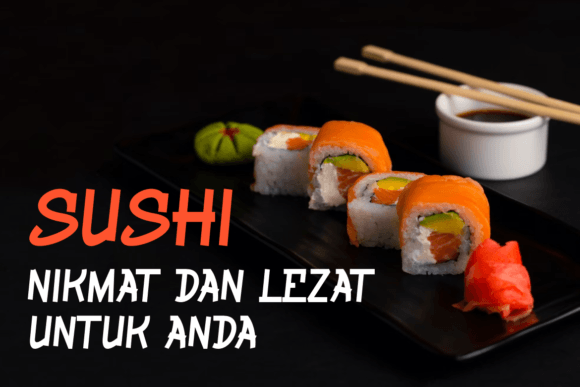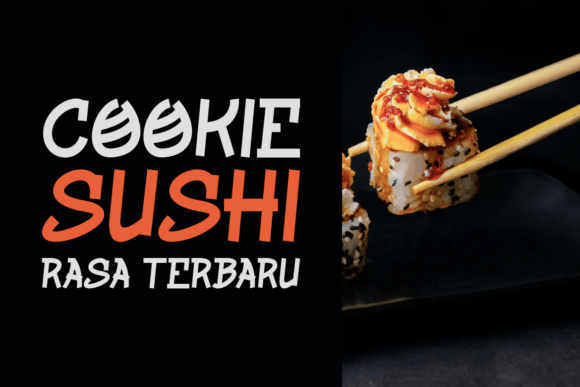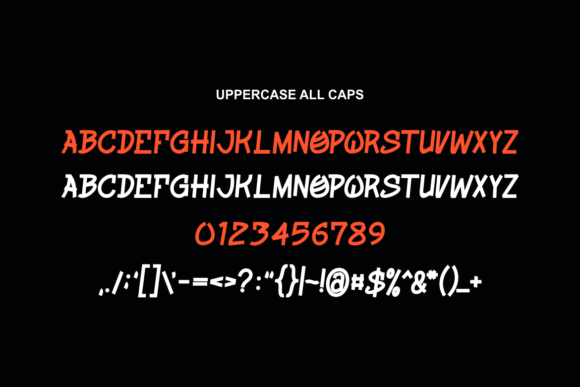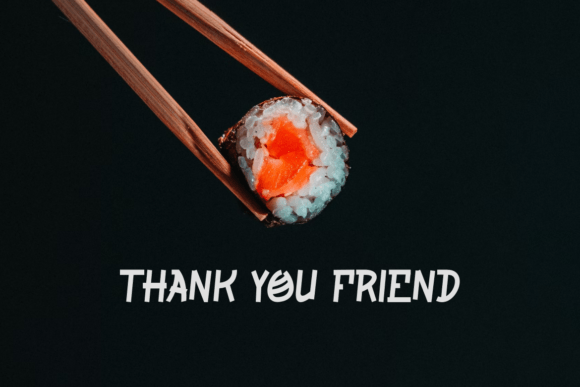
Introduction to Robycksushi Font
Remember that moment when you stumbled upon the perfect font for your creative project, and everything just clicked? For designers, finding the right font can be a game-changer. It’s the difference between a design that looks like it was done by a pro and one that just looks like a generic template.
That’s where the Robycksushi Font comes in – a modern and unique display font that’s sure to elevate your design to the next level. With its sleek and modern design, it’s perfect for any branding project, from logos to banners, web designs to menus, and so much more.
What sets the Robycksushi Font apart is its high-quality design, making it a valuable resource for designers looking to create truly stunning designs. Plus, it’s available for free download, making it an accessible design resource for creatives of all levels.
Key Features of Robycksushi Font
- Unique blend of Japanese and modern design elements, making it a valuable resource for creative projects.
- Designed to be highly legible, with clear and crisp typography that’s perfect for a variety of creative projects.
Honest Review: Robycksushi Font
As a designer, I’ve had the chance to work with a wide range of fonts, but the Robycksushi Font caught my eye due to its unique, playful design. I downloaded it from a reputable design resource and was impressed by the high-quality file.
- What works well: ✨ The font’s bold lines and quirky shapes make it perfect for creative projects that require a touch of whimsy. I used it for a branding project and loved the results.
However, I did encounter some limitations with the Robycksushi Font. ⚠️ For instance, it’s not as versatile as some other fonts, and it might not be suitable for formal or professional projects. Additionally, the font doesn’t come with a comprehensive character set, which can be a drawback for some designers.
Overall, I think the Robycksushi Font is a great addition to any designer’s toolkit, especially for creative projects that require a unique touch. While it has its limitations, the benefits of using this font far outweigh the drawbacks. I’d definitely recommend it for free download and experimentation.
Introduction to Robycksushi Font
The Robycksushi Font is a unique and versatile design resource perfect for creative projects. This high-quality font features a transparent background, making it ideal for overlaying text onto images or backgrounds.
Noto Sans is a high-quality, multi-script font developed by Google. It features a transparent background, making it ideal for designers working on creative projects that require a clean and minimalist aesthetic. Noto Sans is a great alternative to Robycksushi Font when you need a more formal and professional look.
Comparison to Robycksushi Font: Noto Sans has a more traditional and classic feel, whereas Robycksushi Font is more playful and quirky. Noto Sans is also highly customizable, making it a great choice for designers who need a lot of flexibility.